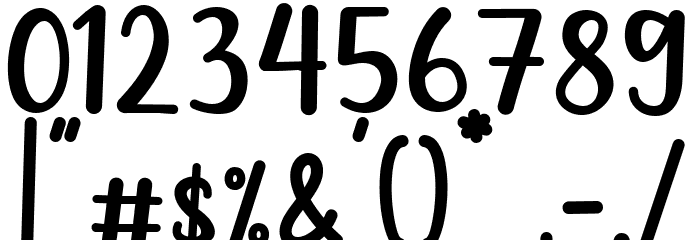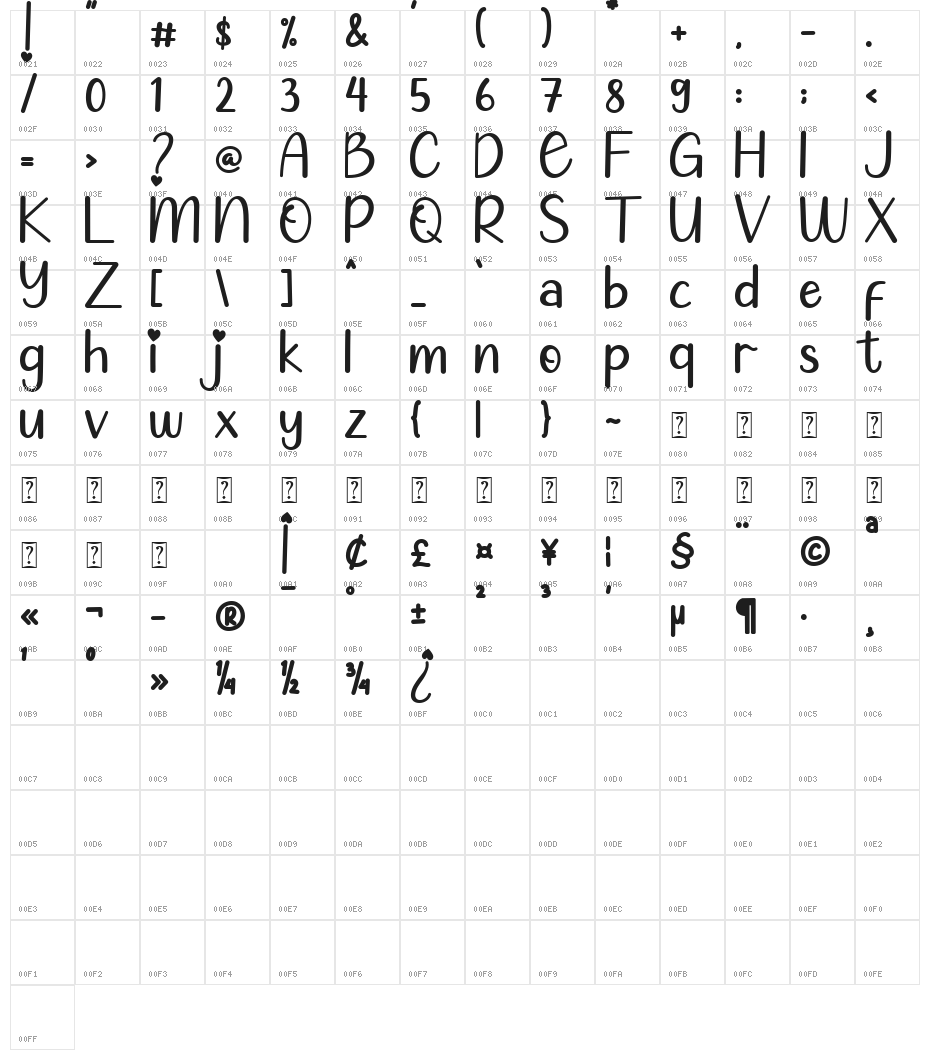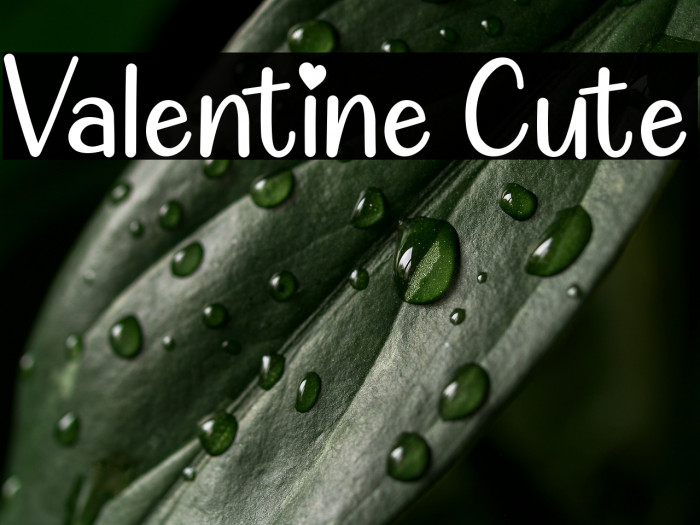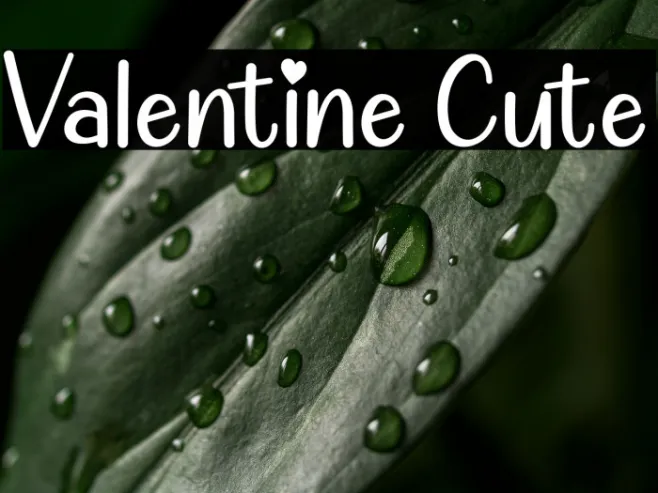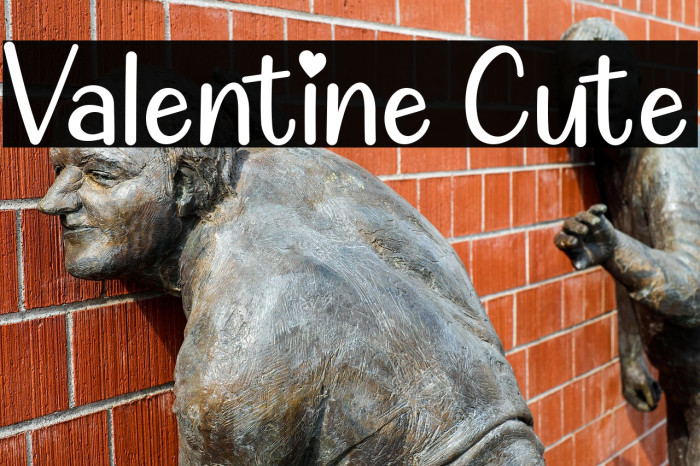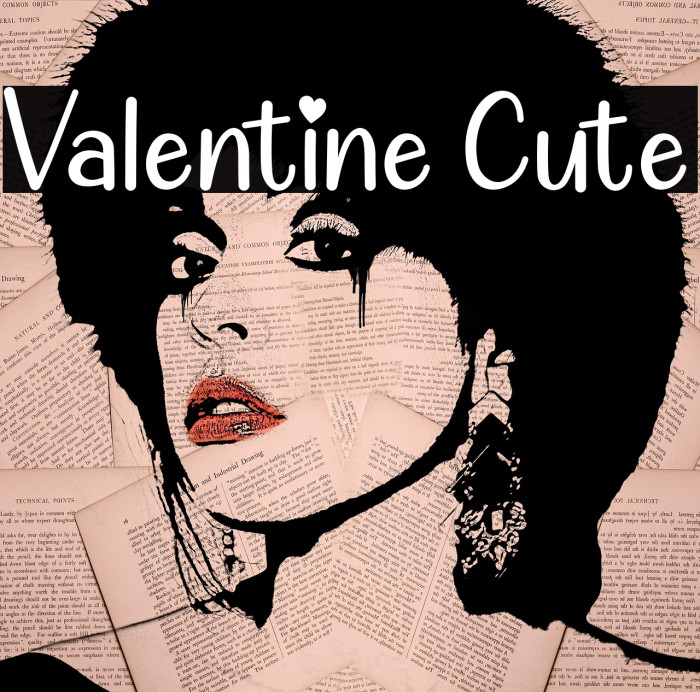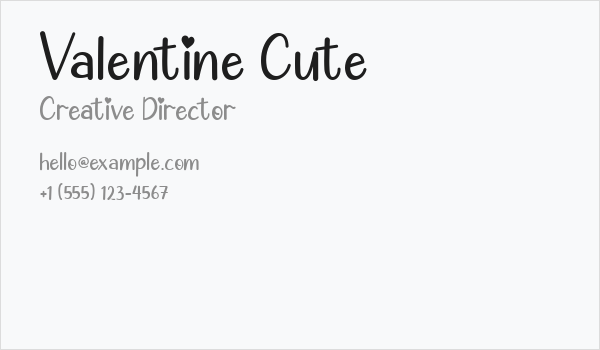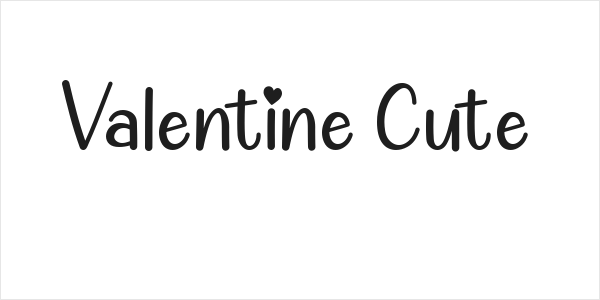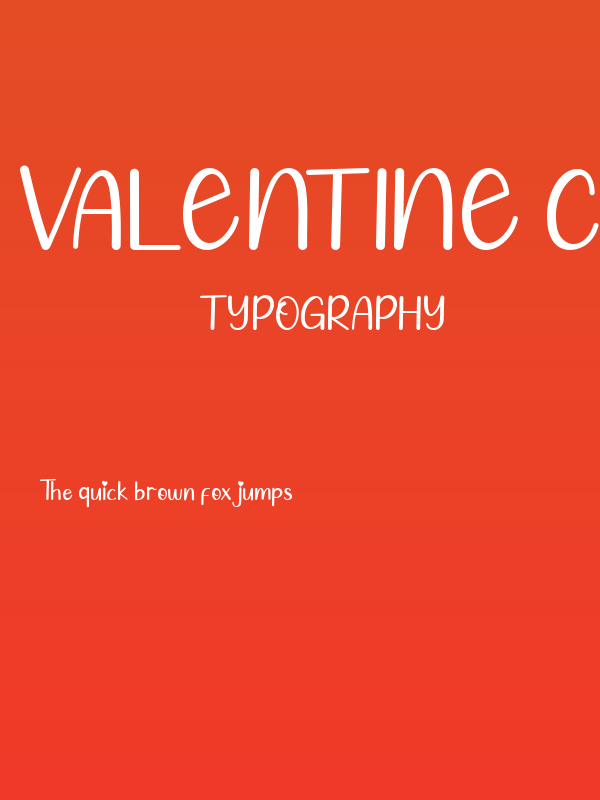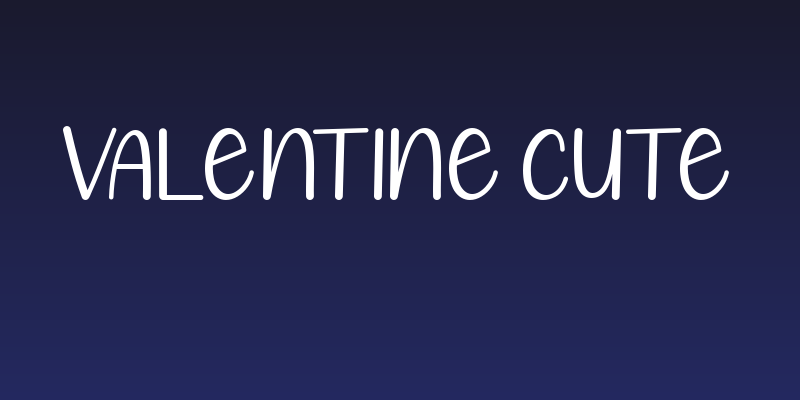
Valentine Cute Font
Valentine Cute Description
This playful and charming font features a whimsical style with a touch of romance, perfect for adding a cute and friendly vibe to any project. The letters are rounded and smooth, with a consistent stroke width that gives it a clean and approachable look. Notably, some characters incorporate heart motifs, enhancing its playful and affectionate theme. The font maintains a balanced and even spacing between characters, ensuring readability while preserving its decorative appeal. Its overall style is both modern and fun, making it suitable for a variety of creative applications.
| Overall Style | Modern, Playful |
| Proposed Projects | Ideal for greeting cards, children's books, playful branding, and Valentine's Day promotions. |